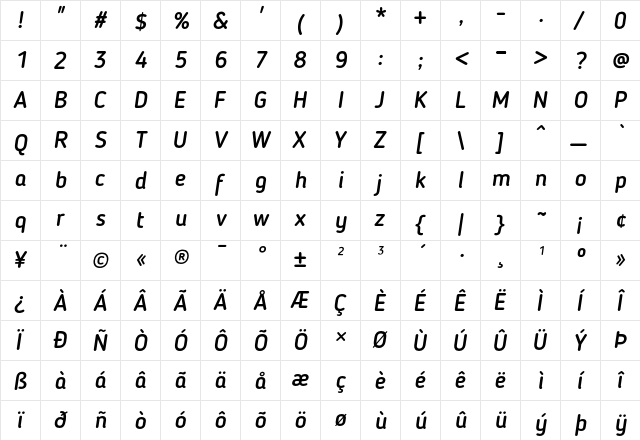
Blogger Sans Medium Italic
Design Context for Blogger Sans Typeface
Blogger Sans takes a measured approach to typography — its balanced proportions and neutral character make it a reliable workhorse for both digital and print work. Its italic angle brings a sense of urgency and motion to the letterforms.